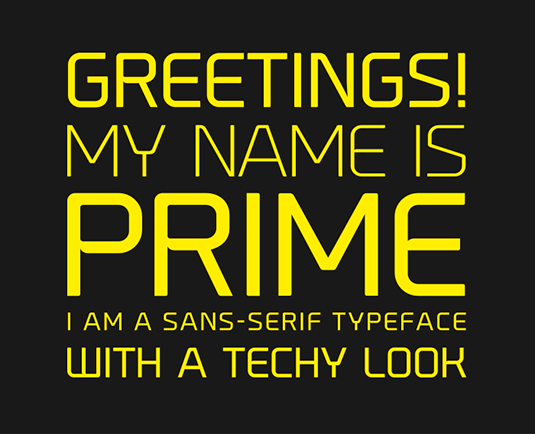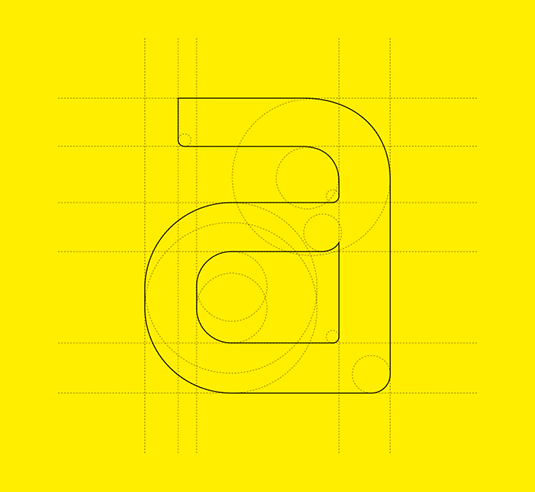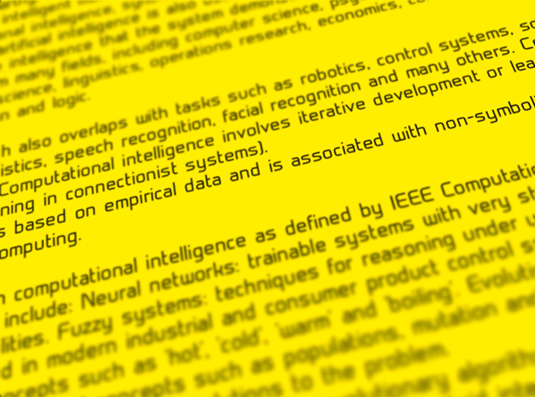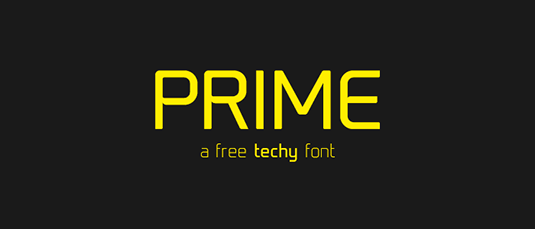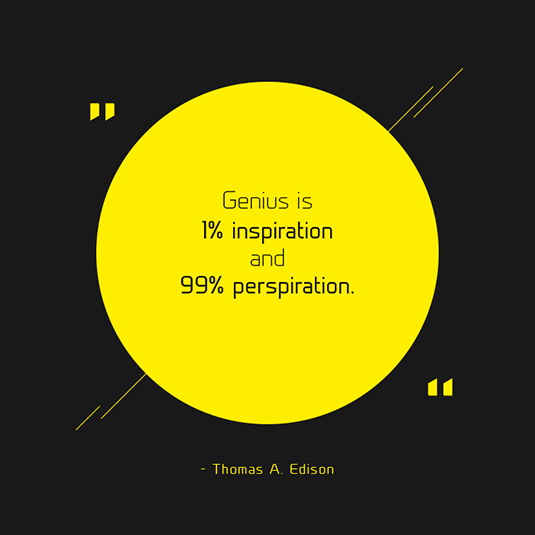
Font of the day: Prime
Every day we showcase our favourite fonts – today it's Prime by Max Pirsky which is completely free.
Prime by Max Pirsky
Today's showcased typeface is Prime, created by Max Pirsky. A geometric sans serif, Prime will give a techy feel to any project and its clean, unembellished form means it can be used in everything from body text to posters.